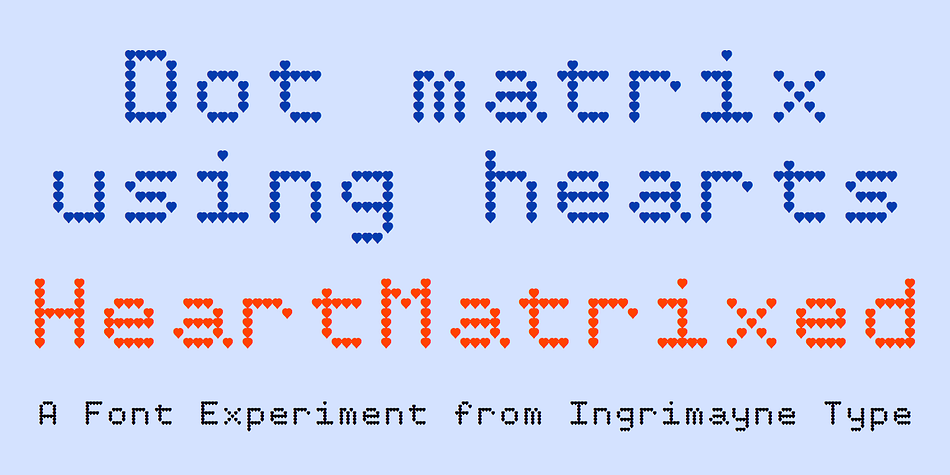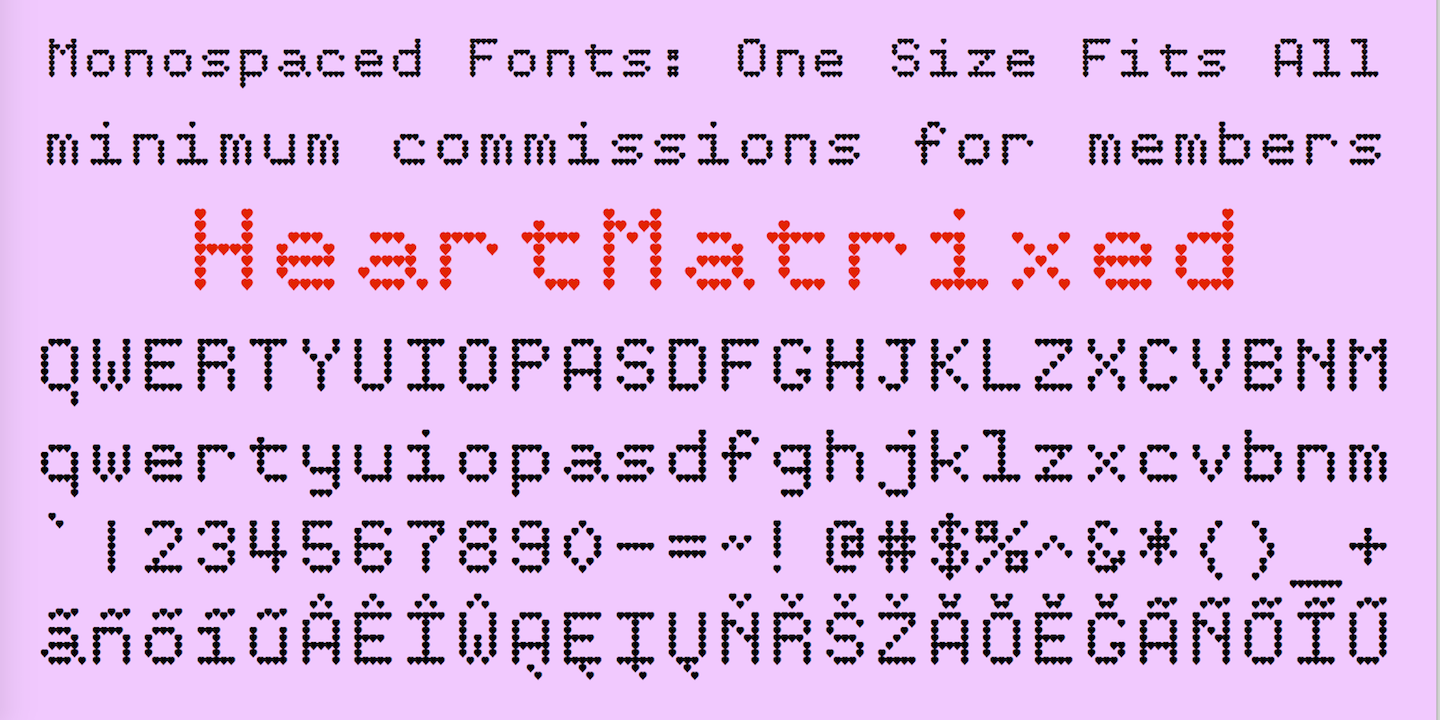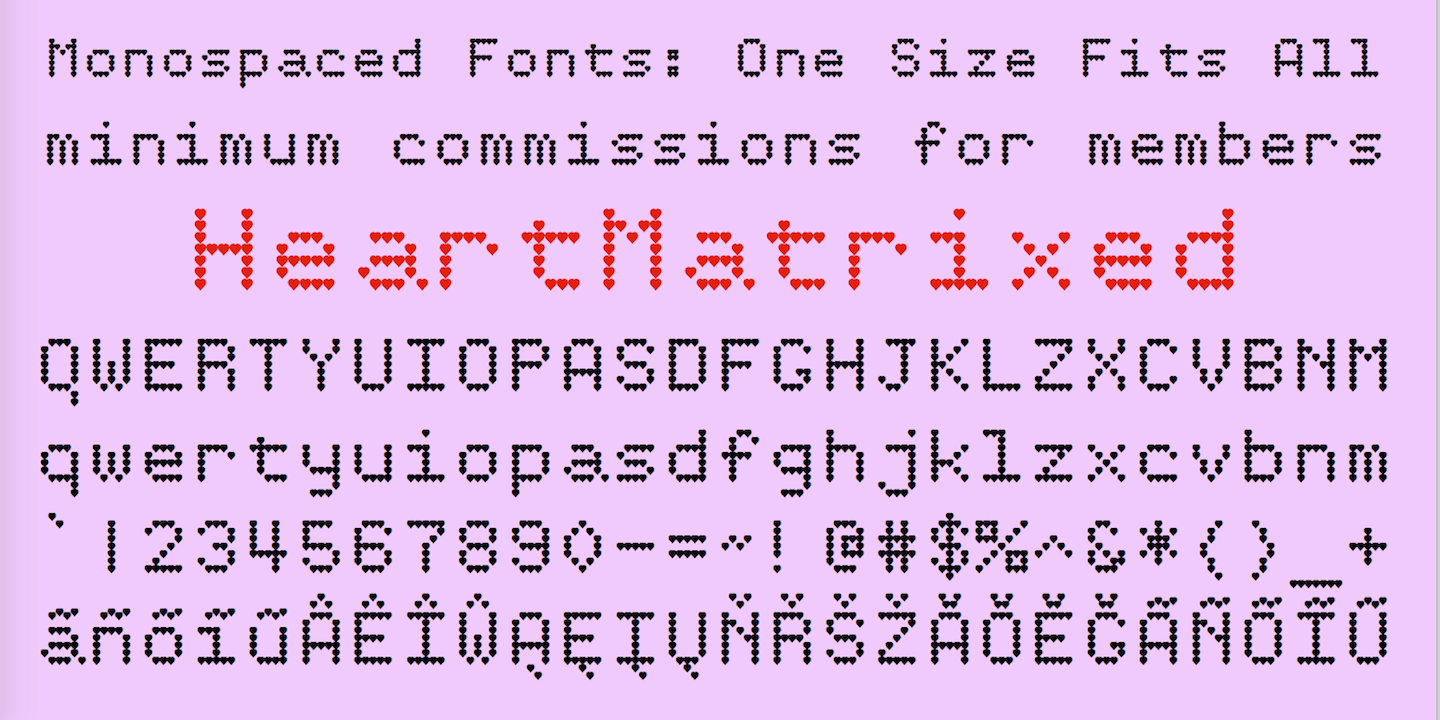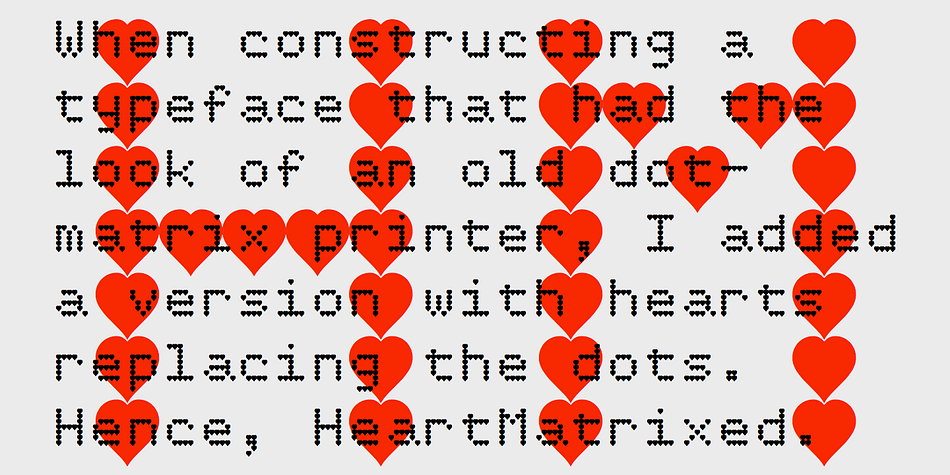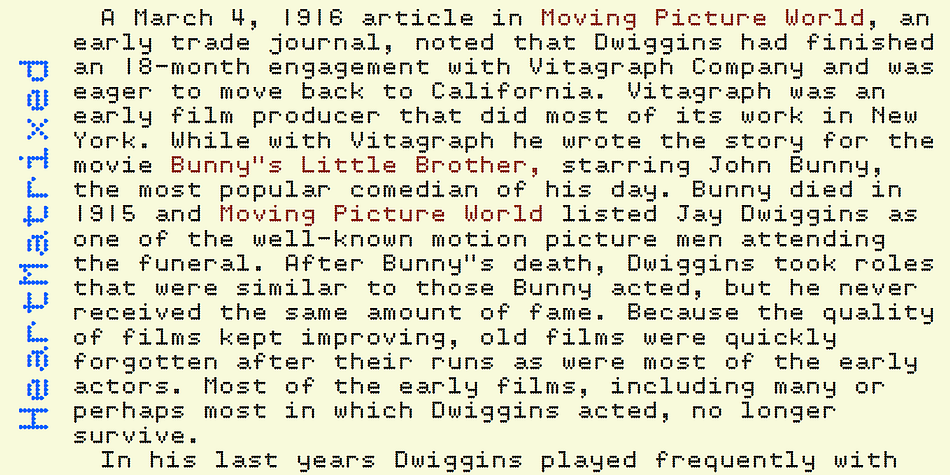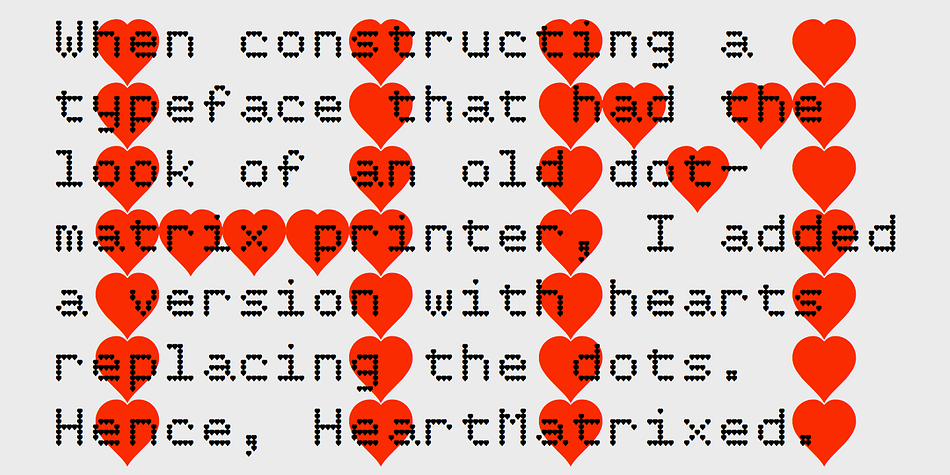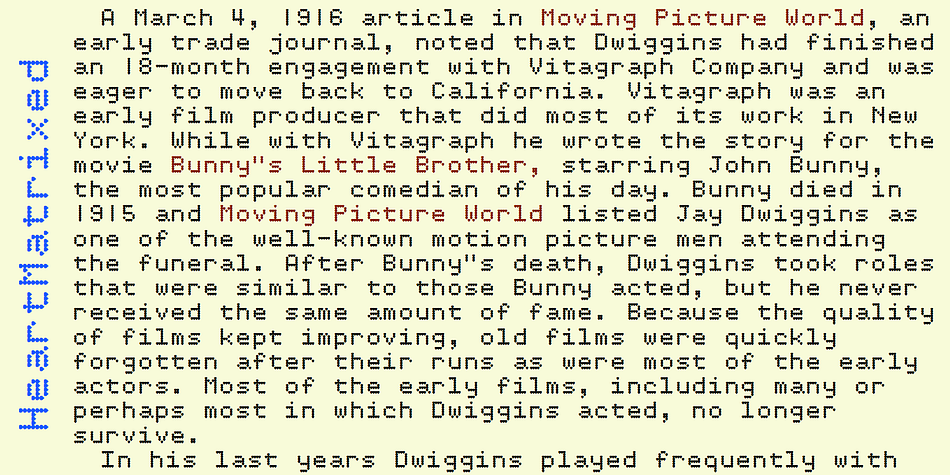
HeartMatrixed
Designed by Robert Schenk, HeartMatrixed is a pixel font published by Ingrimayne Type.
HeartMatrixed is based on a matrix of dots in the shape of little hearts. It uses the same design pattern for placing dots as Dottie.